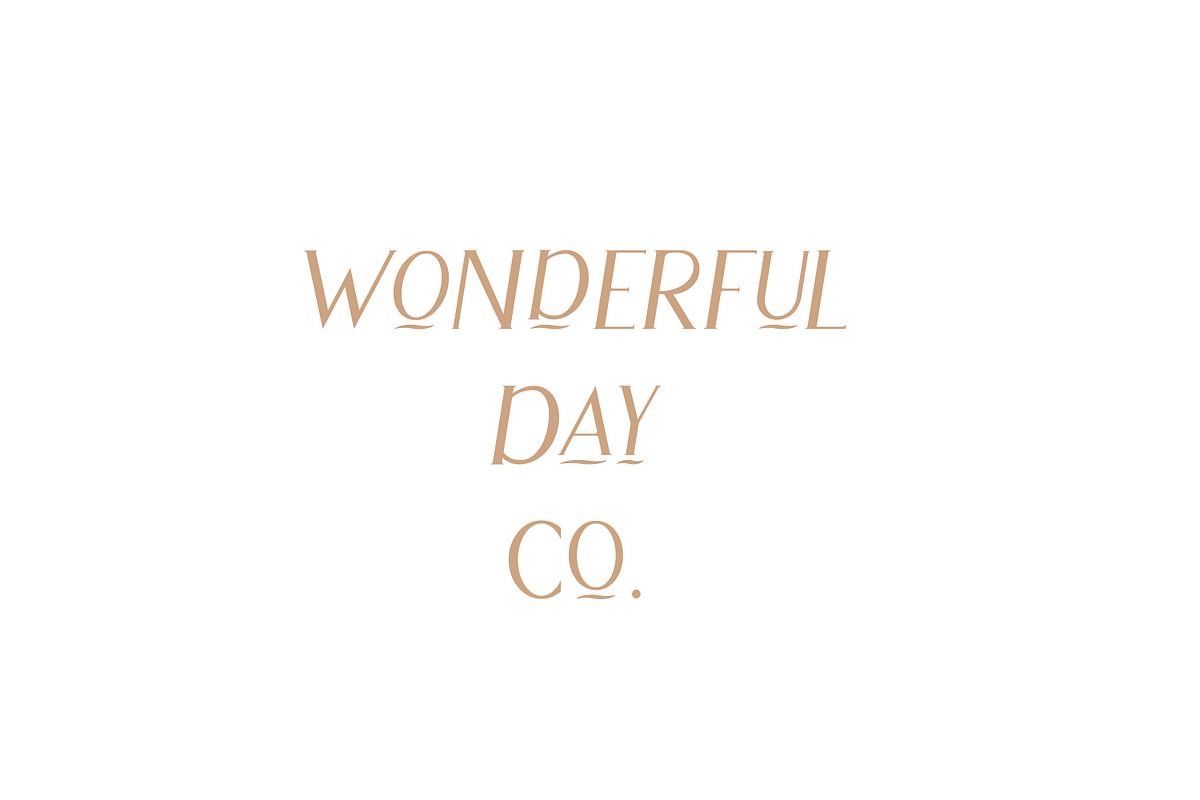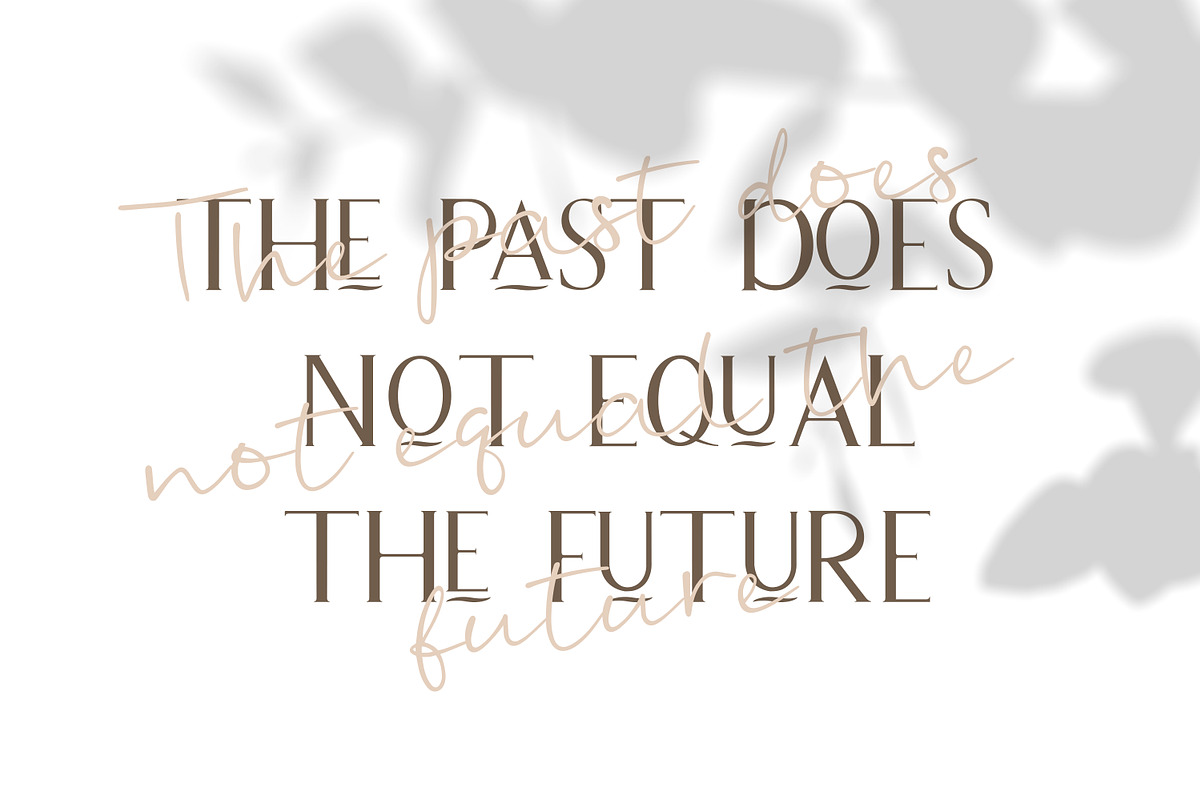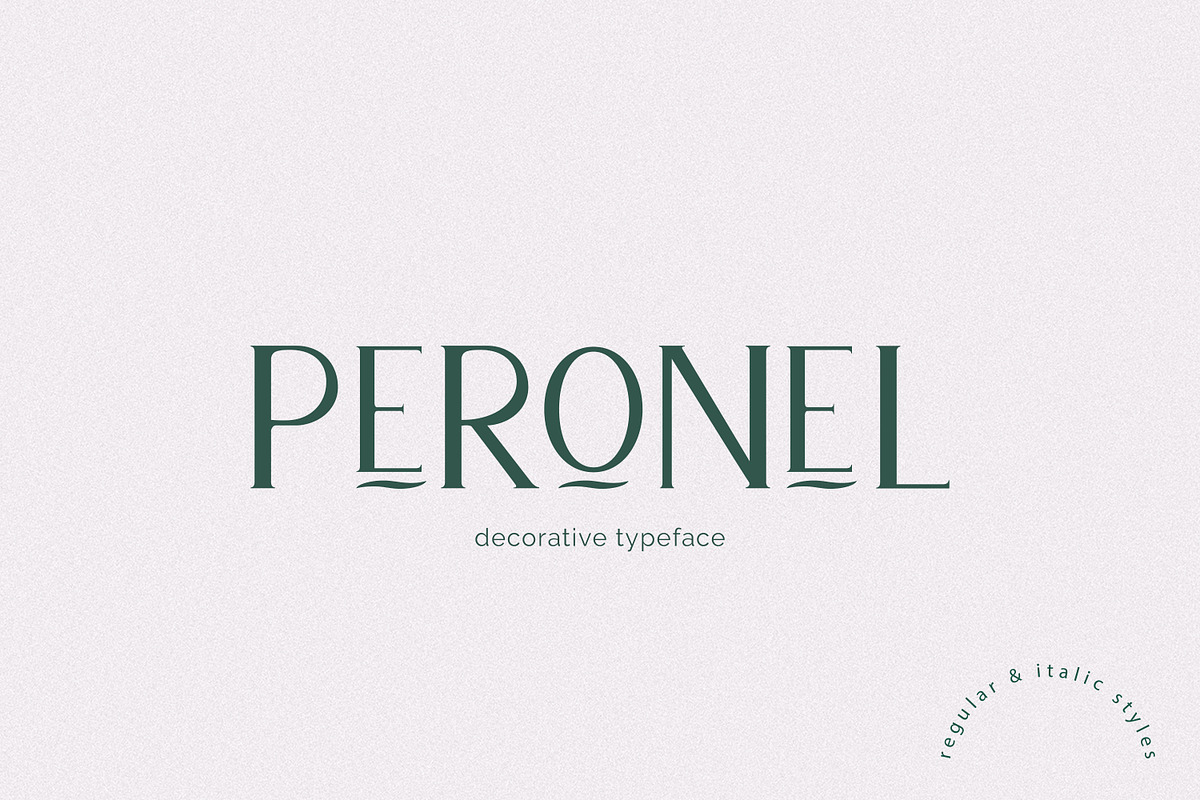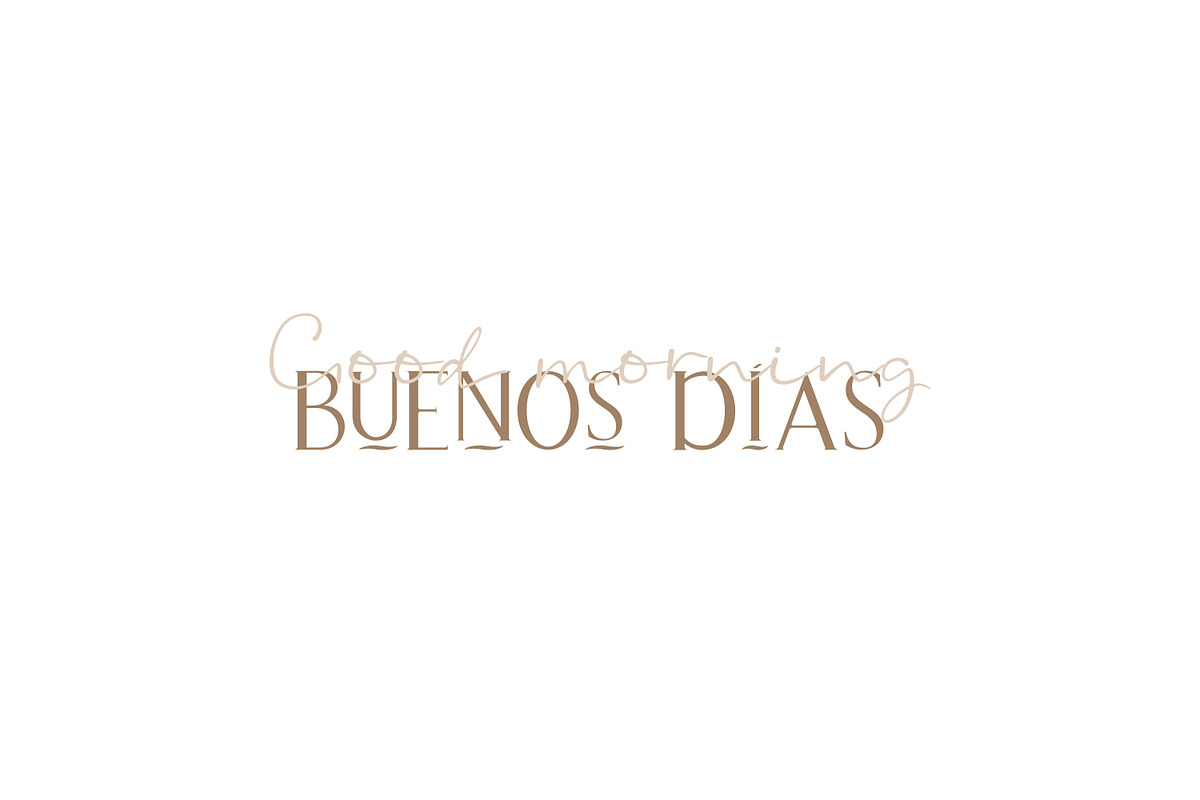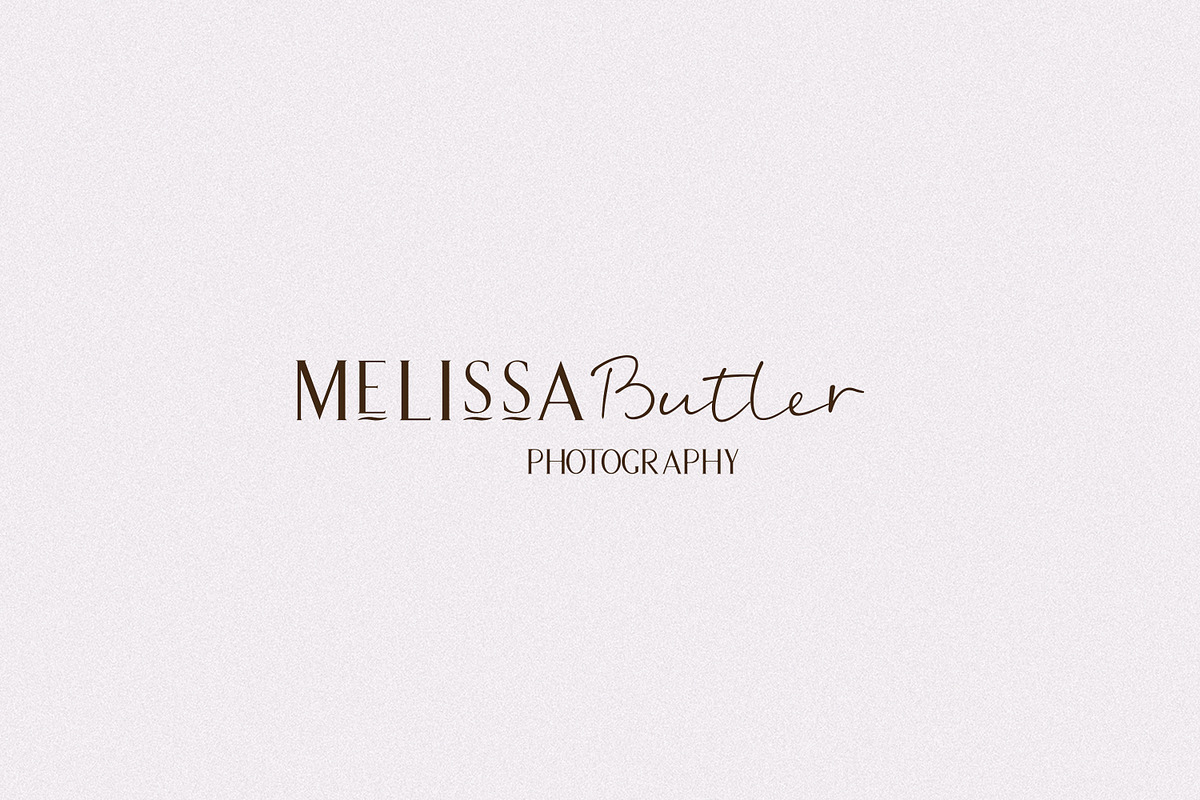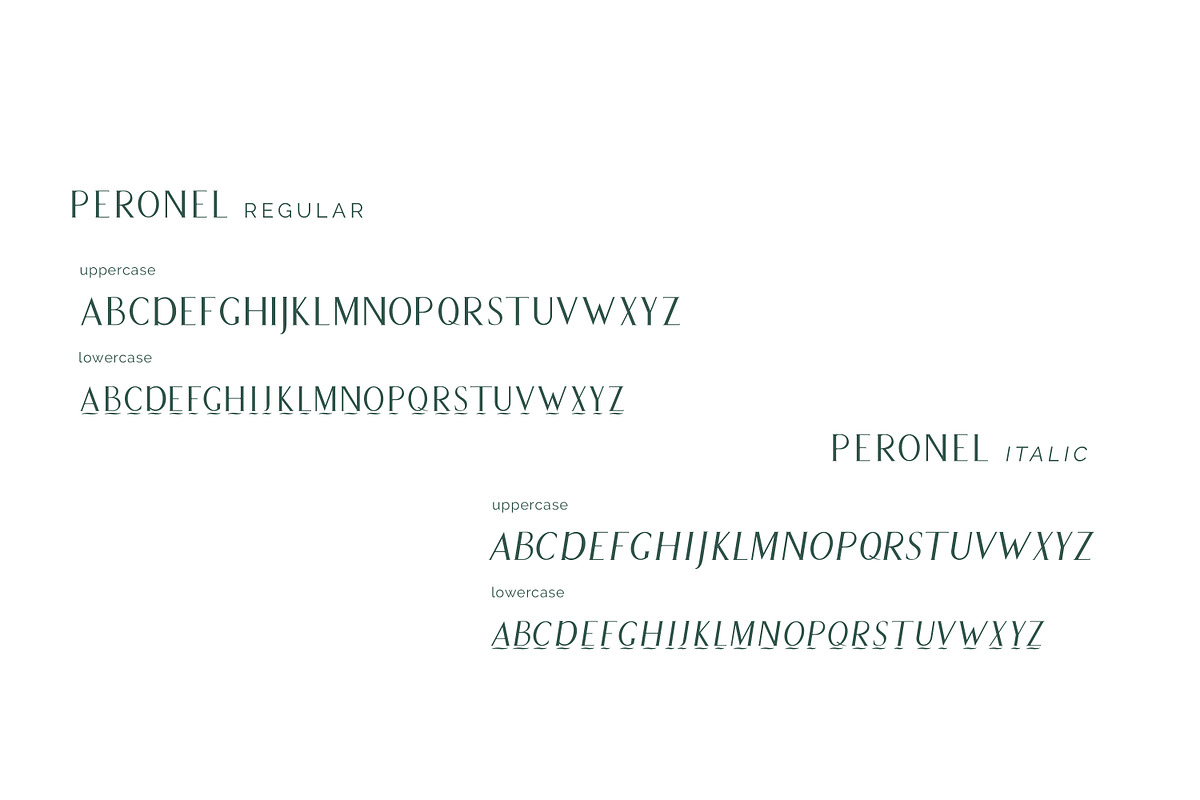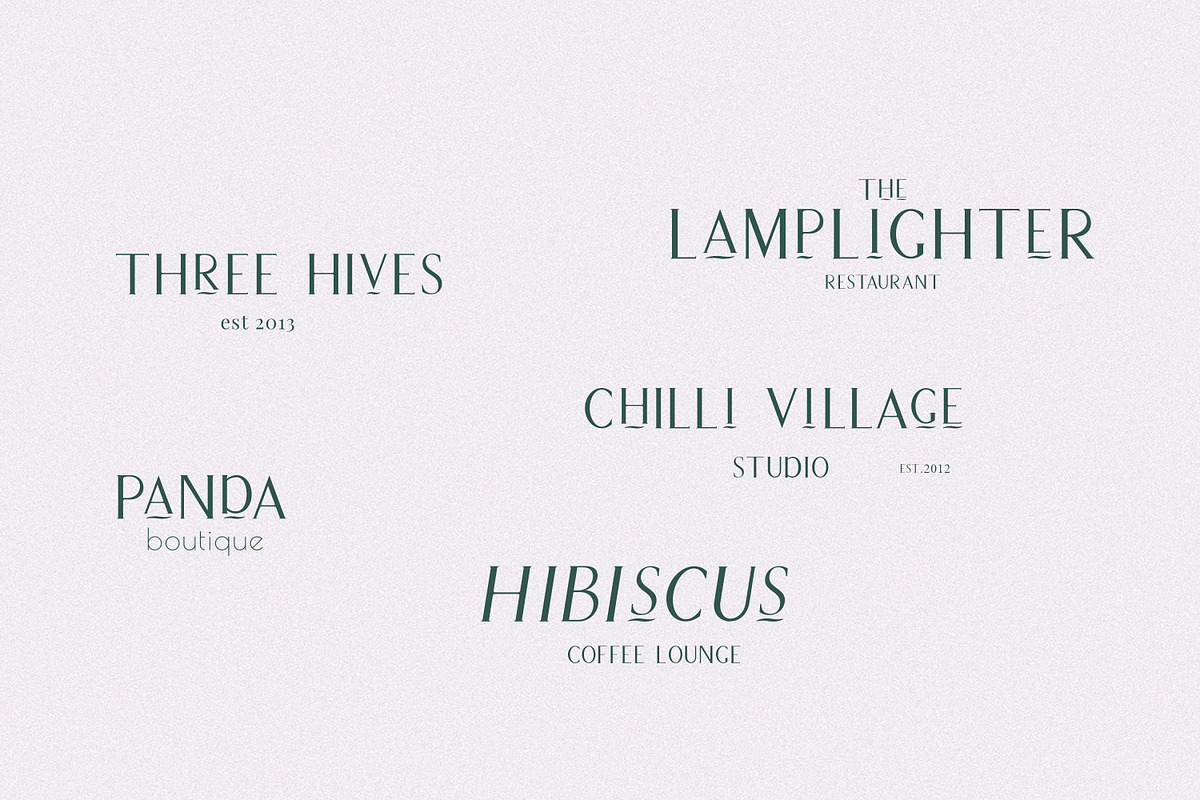
Peronel, Decorative font
Peronel is a serif font with swash line under the lowercase letters. It has a regular and an italic style and works perfectly for logos, headlines, posters, packaging, postcards, social media and much more.